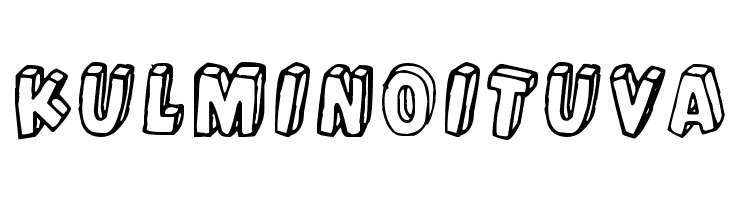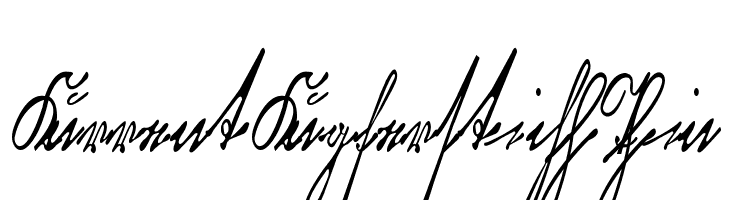
A playful, casual handwritten font with fluid strokes and a relaxed appearance.
A bold, Art Deco-inspired font with geometric shapes and elegant lines.
A bold, gothic font with intricate, mystical detailing.
A bold, abstract font with overlapping oval shapes, inspired by organic patterns.
A tree-inspired font with angular, branch-like characters.
A bold, impactful font with thick strokes and minimal spacing, ideal for strong visual statements.
A playful, dynamic font with bold, irregular characters and a whimsical style.
A flowing, elegant script font with smooth, cursive strokes.
A dotted, digital-style font with a modern and futuristic look.
A bold, modern font with a dotted, geometric design.
An elegant script font with flowing, cursive style and high contrast.
An elegant, flowing script font with graceful curves and artistic flair.
A bold, geometric font with sharp angles and smooth curves, perfect for modern designs.
A bold, geometric font with Art Deco influences, featuring sharp lines and smooth curves.
A decorative, bold font with geometric and star-like embellishments.
A dynamic and elegant cursive script font with bold, flowing letterforms.
A bold, hand-drawn font with a playful and artistic style.
Bold, decorative slab serif with dotted fill and vintage flair.
A bold, graffiti-inspired font with dynamic, sweeping strokes and urban flair.
A pixelated, retro font inspired by classic video game graphics.
A bold, pixelated outline font with a retro gaming aesthetic.
A bold, high-contrast font with unique geometric and organic shapes.
A bold, geometric font with decorative elements and minimal contrast.
A bold, playful oblique font with rounded, inflated characters and moderate contrast.
An ornate and decorative font with intricate swirls and embellishments.
A decorative font with intricate swirls and artistic embellishments.